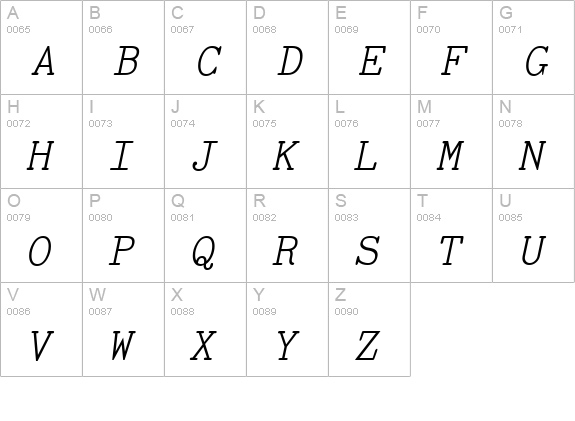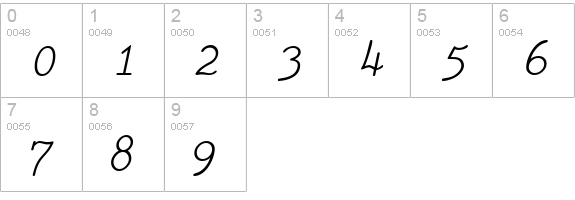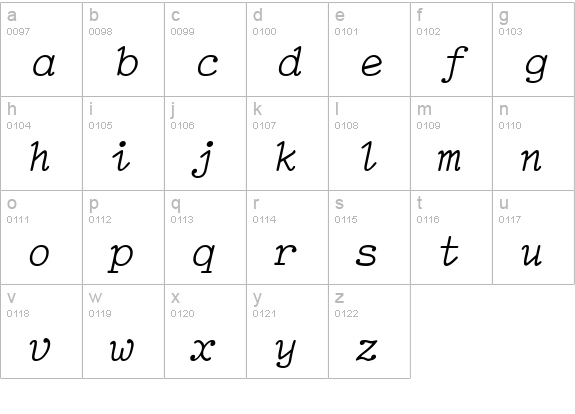
TiredOfCourier Italic Font Details
TiredOfCourier Italic is a distinctive, italic variant in the TiredOfCourier typeface family \xE2\x80\x94 well suited to design and typography projects.
TiredOfCourier Italic font is a beautiful and versatile typeface that is perfect for adding a touch of elegance and sophistication to your designs. This font is designed with a unique italic style that adds a sense of movement and grace to your text. With its stylish and sleek curves, TiredOfCourier Italic font is sure to catch the eye and make a lasting impression. Whether you're designing a logo, creating a poster, or crafting a stylish invitation, this font will elevate your design to new heights. One of the best things about TiredOfCourier Italic font is that it is freely available to download at FontsMarket.com. This means that you can easily access this stunning font and start using it in your projects without any restrictions. Whether you're a professional designer or a hobbyist, this font is a valuable addition to your creative toolbox. TiredOfCourier Italic font is not only visually appealing but also highly legible, making it a great choice for both print and digital designs. Its carefully crafted letterforms ensure that your text is clear and easy to read, even at small sizes. So why wait? Download TiredOfCourier Italic font today from FontsMarket.com and add a touch of elegance and sophistication to your designs. Whether you're creating a logo, designing a website, or crafting a beautiful piece of typography, this font is sure to impress. Start using TiredOfCourier Italic font and take your designs to the next level.